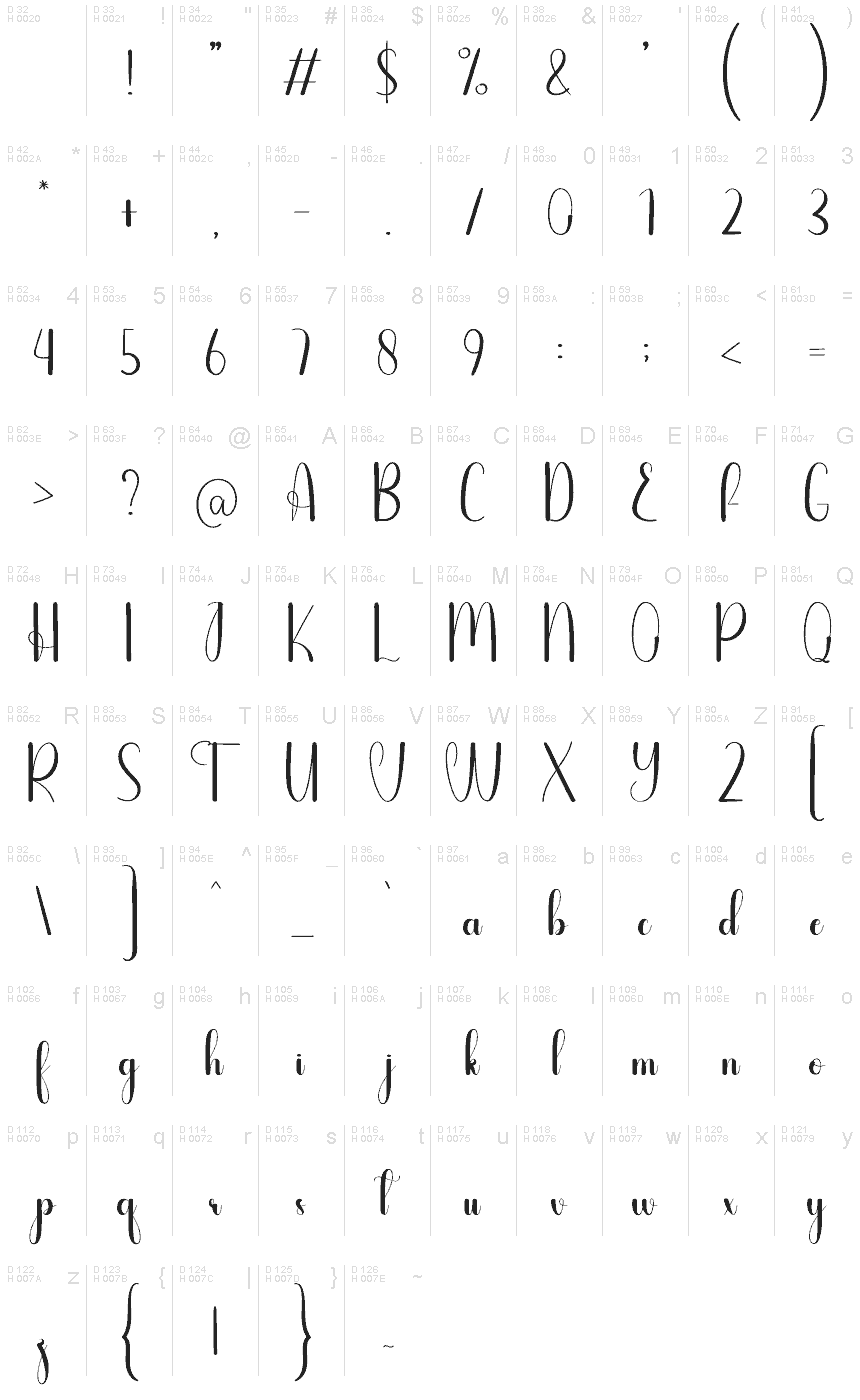
Handhome
Handhome font, by Andi Moz, is a calligraphy condensed typeface with an elegant and flowing design. This modern script font features an artistic flair adorned with ornamental details presenting a sophisticated appearance. It has lively curly letter tails both at the beginning and end of most individual characters for extra creative decoration.
The free calligraphy font is perfect for making delicate yet appealing packaging designs, product labels, special invitation cards, posters with trendy quotes, wrapping paper designs, greeting cards, banners or flyers for companies in the beauty industry (fashion stores or high-end beauty salons), website titles; be it travel blogs or decorative online magazines.